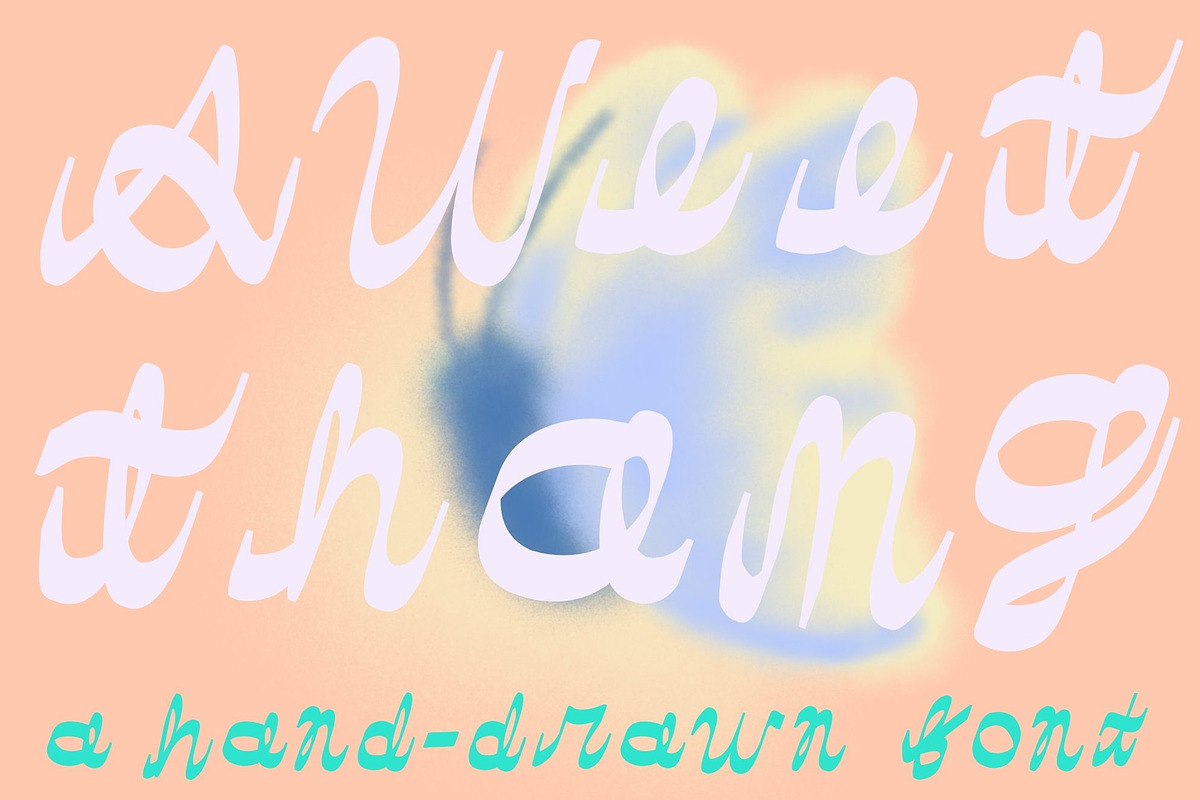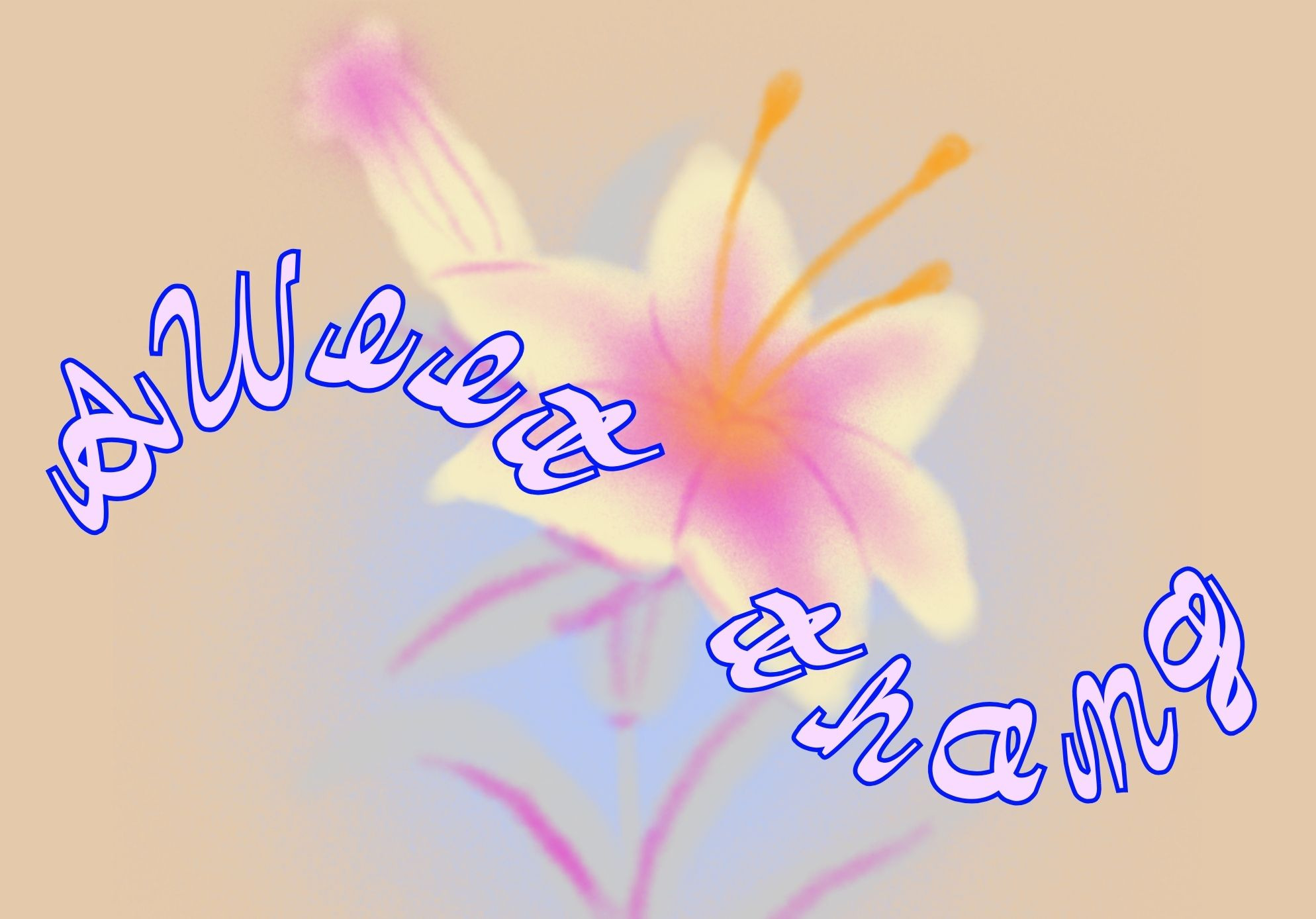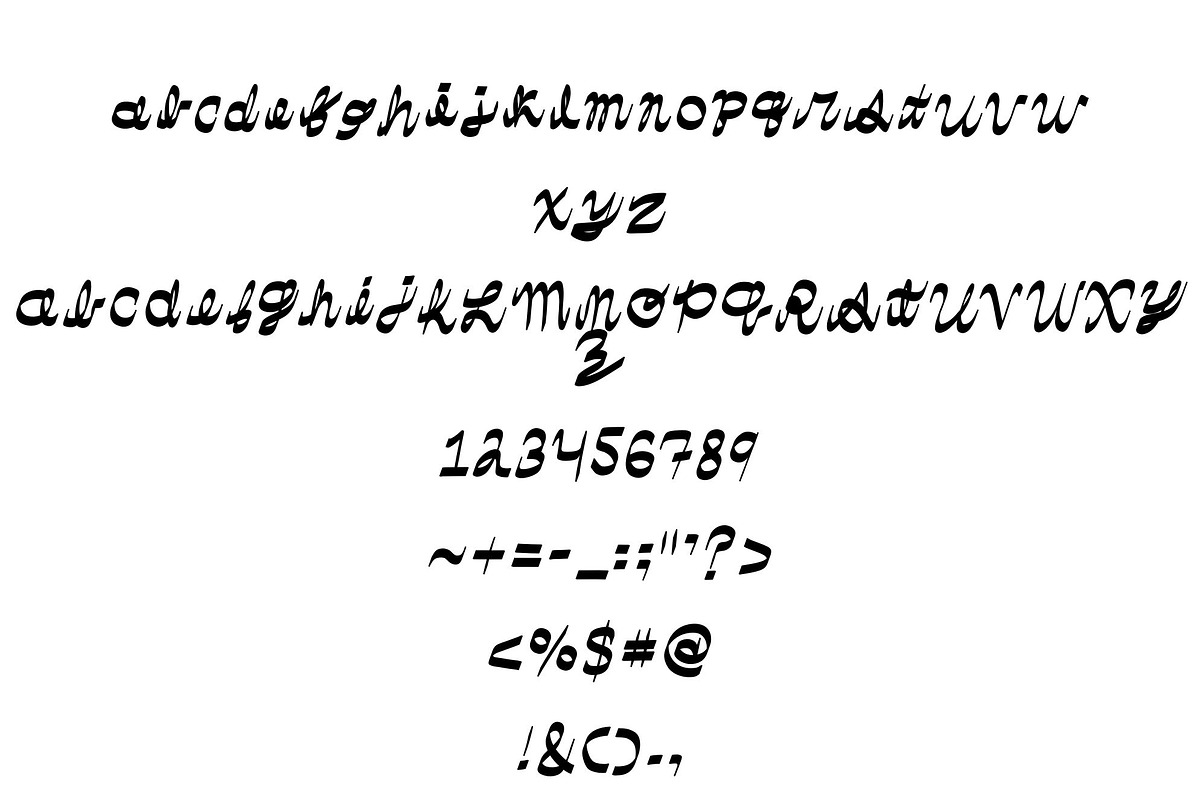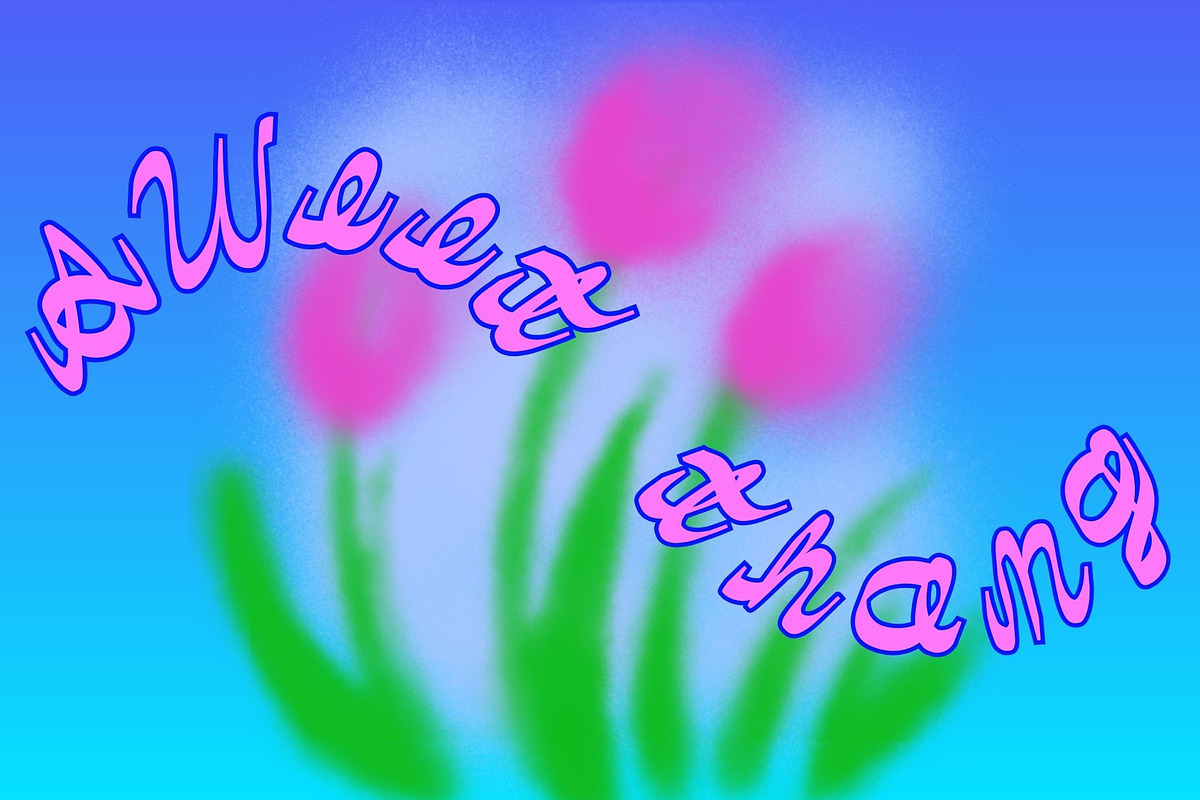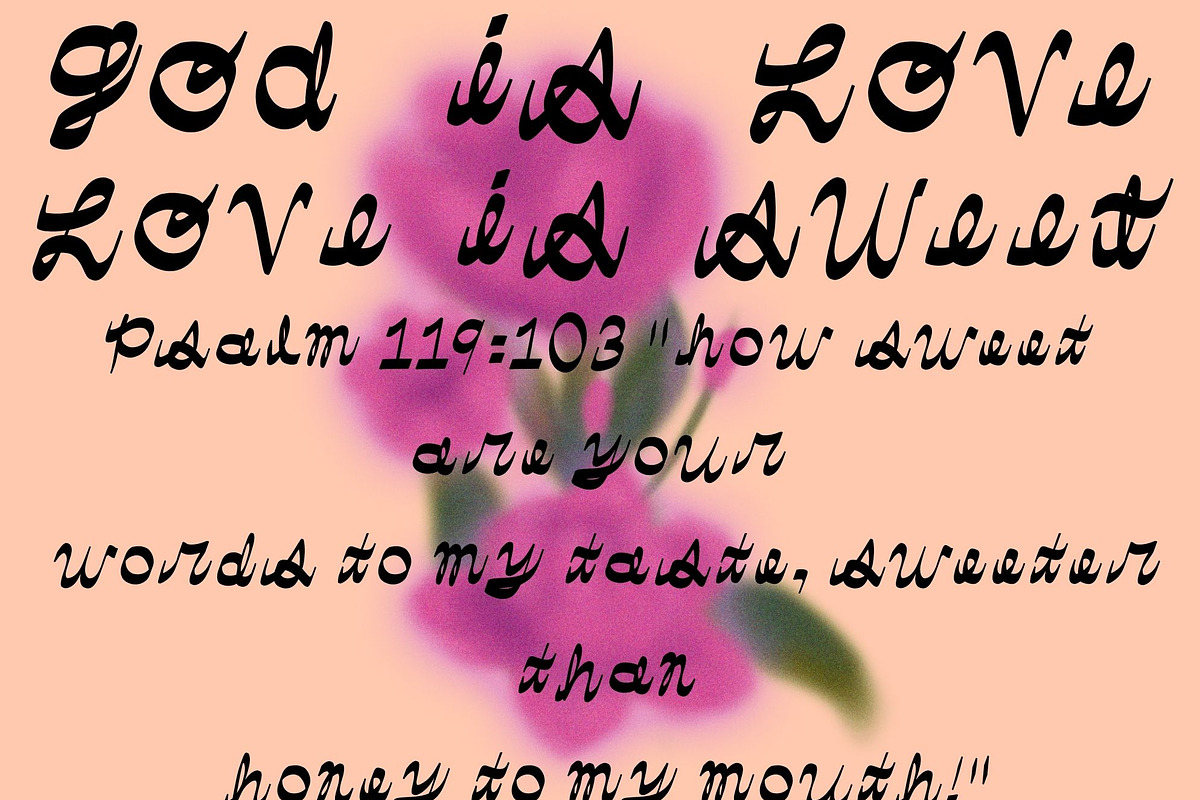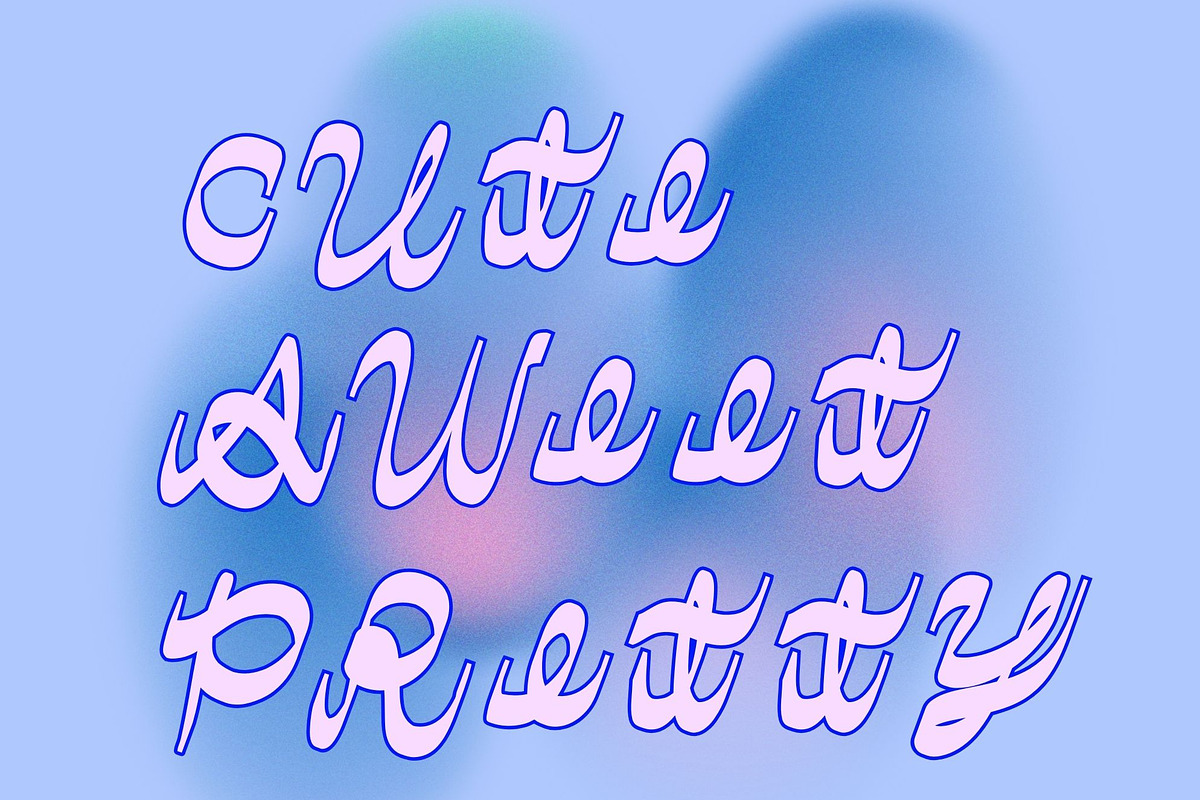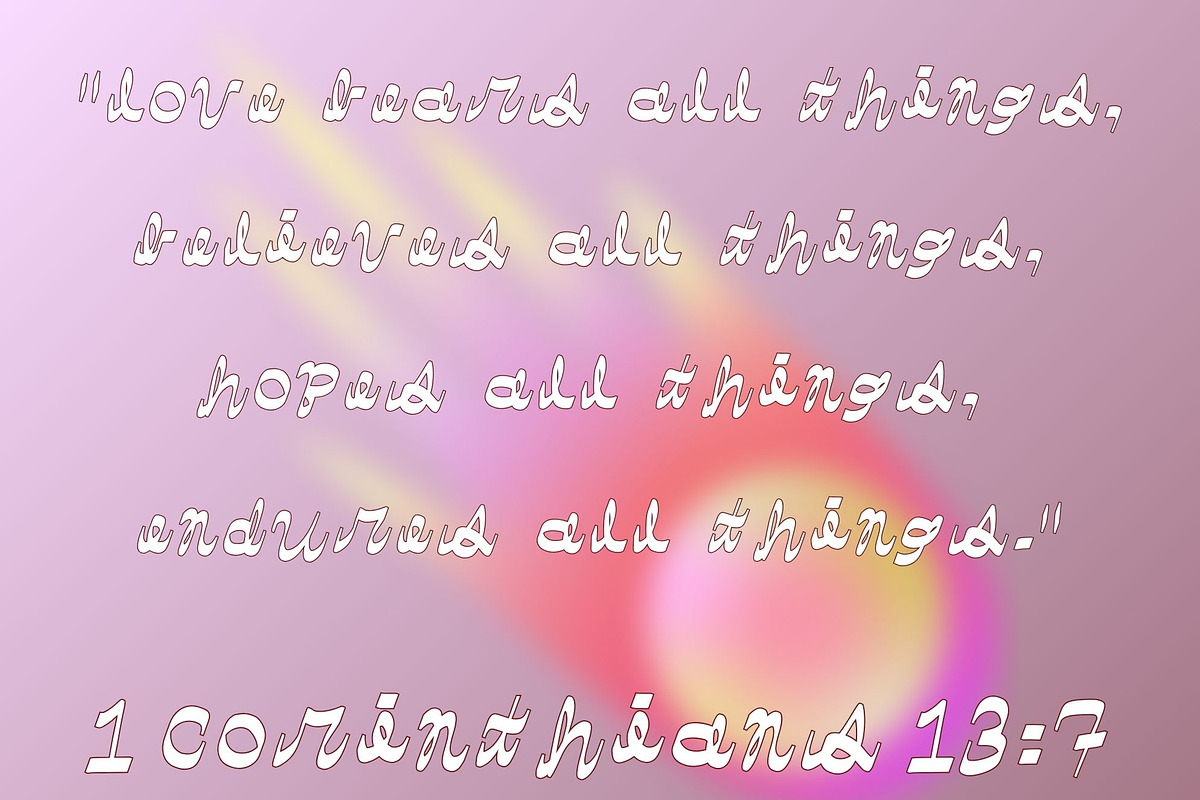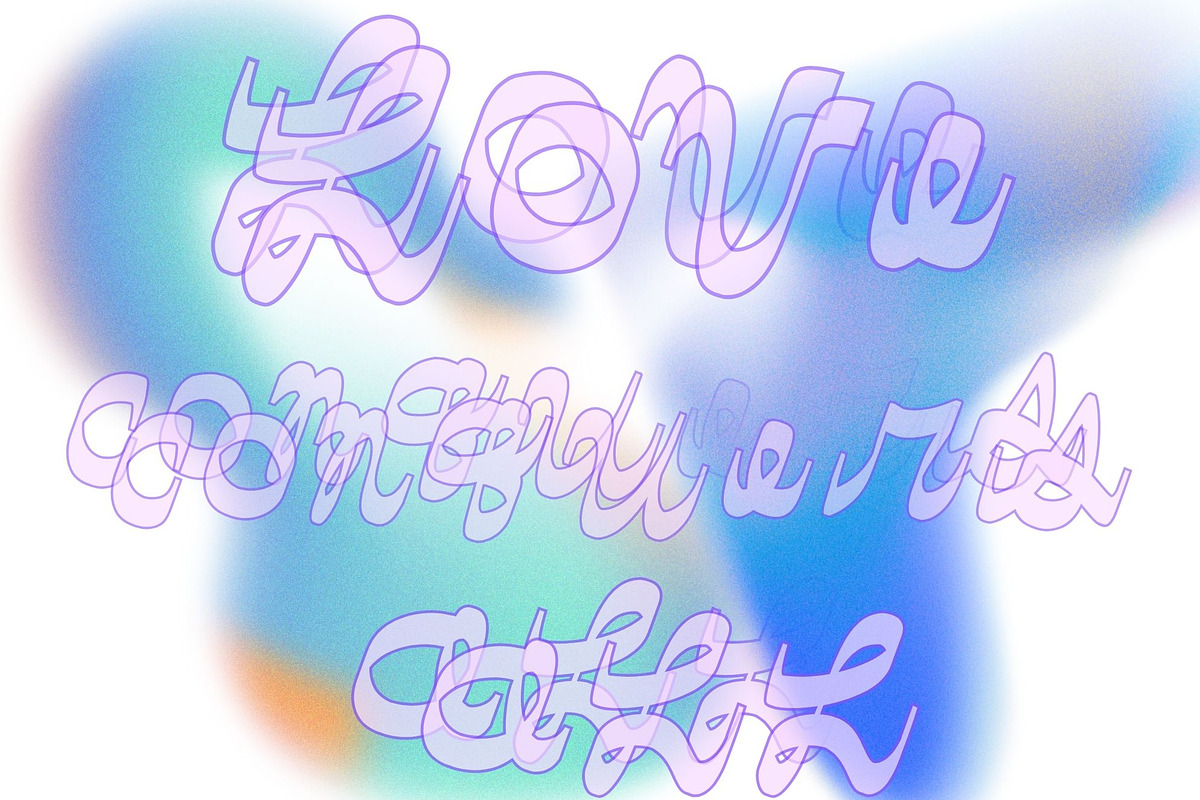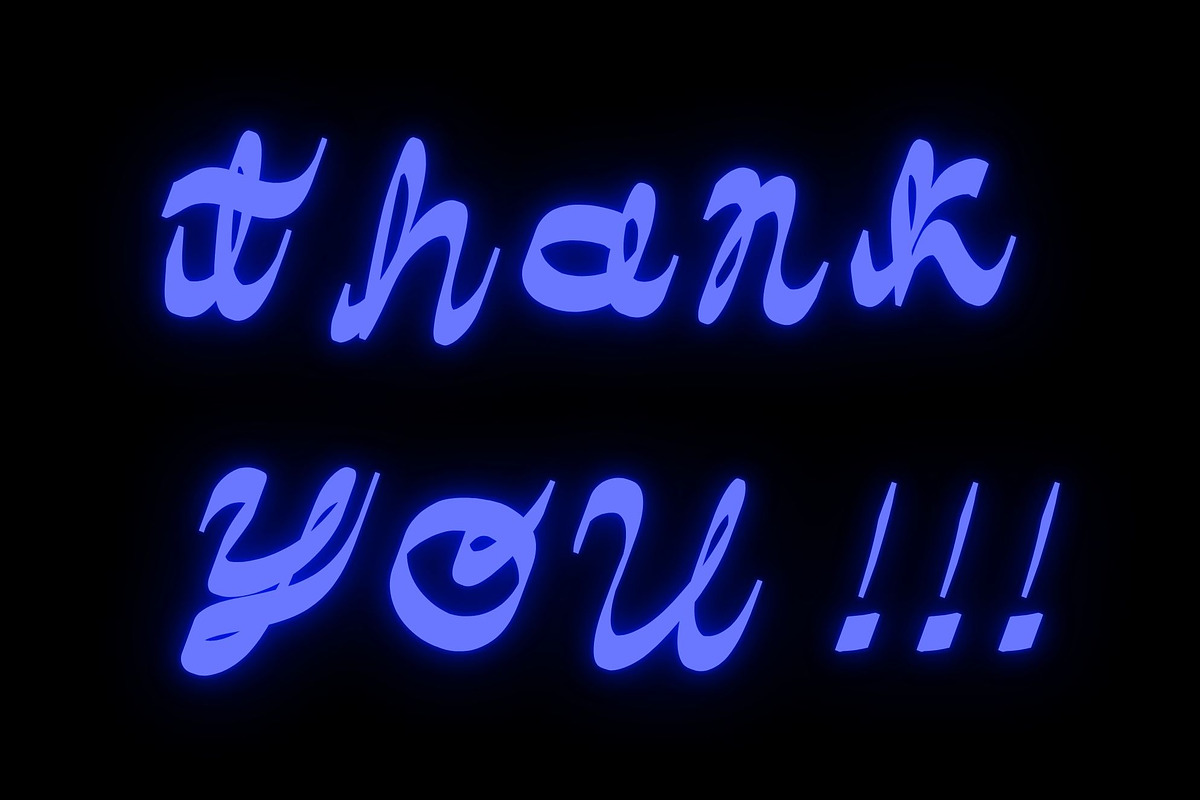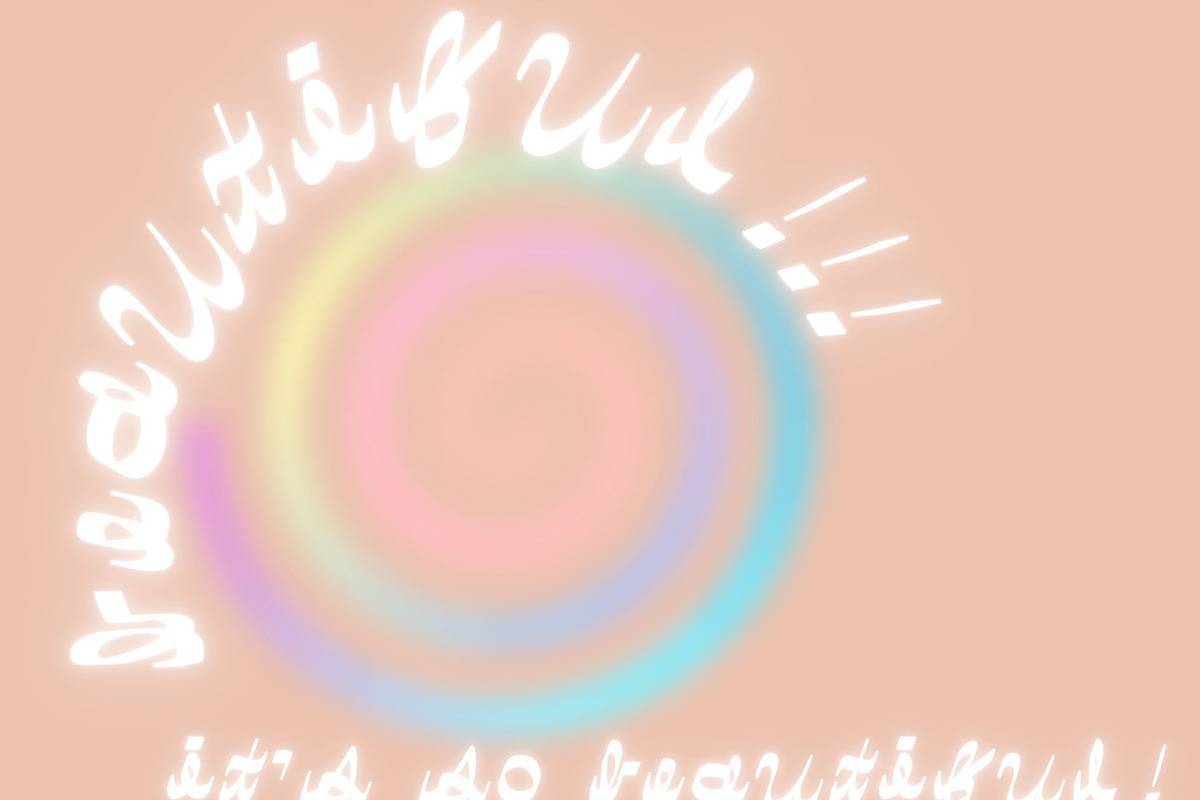
Sweet Thang a hand-drawn font
Sweet Thang is an expressive, cursive-y , hand-written front , excellent for designers who love the living energy vibes that only hand-drawn fonts contain. Featuring thickly drawn characters with thinly curved ends, this is a font with effortless and timeless style, while remaining fresh and new with a contemporary/hip aesthetic. In other words, this font works well for design work that has a classic aesthetic as well as design work that is more cutting edge. A wonderful font to use if you need a display font or for stationary or product design. Have Fun !
- contains full alphabet and numbers
- contains standard symbols